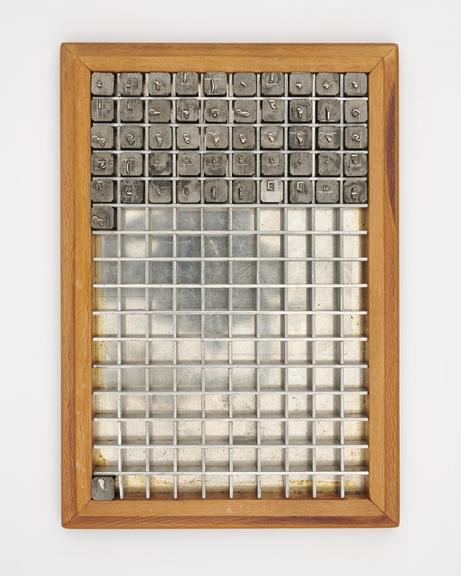
0.4 inch composition punches for Arabic Lakhdar Nashri Roca (typeface series number: 642)
0.4 inch composition punches for Arabic Lakhdar Nashri Roca (typeface series number: 642), font size 18D. This typeface was made in 18D in 1961. In an original wooden box. Manufactured by Monotype Corporation.